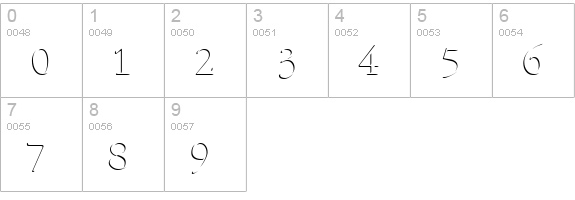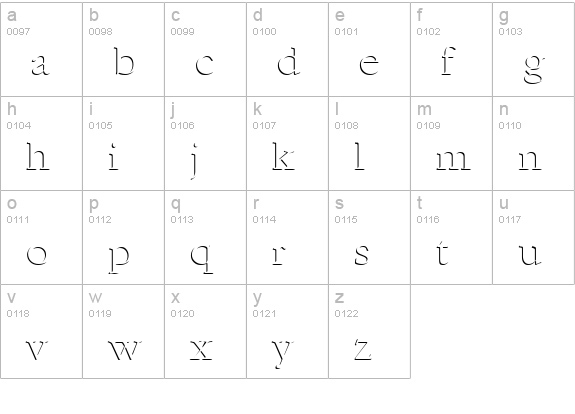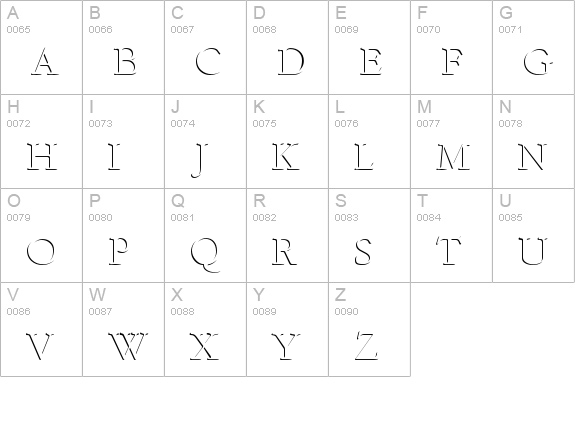
ReliefSerif Regular Font Details
ReliefSerif Regular is the standard, neutral variant in the ReliefSerif typeface family \xE2\x80\x94 well suited to general body text, paragraphs, and standard typographic work.
ReliefSerif Regular is an exquisite font that effortlessly combines elegance with readability. Its timeless serifs and clean lines create a harmonious balance, making it perfect for both professional and creative projects. Whether you're designing a logo, crafting a stunning invitation, or creating a captivating magazine spread, ReliefSerif Regular will add a touch of sophistication and class. This font is designed with the utmost attention to detail, ensuring every character is meticulously crafted to perfection. The delicate curves and intricate letterforms make each word a work of art. The versatility of ReliefSerif Regular allows it to seamlessly adapt to various design styles, from modern and sleek to classic and traditional. What sets ReliefSerif Regular apart is not just its exceptional aesthetics, but also its availability. It is freely available to download at FontsMarket.com. This means that you can easily access and use this remarkable font without any hassle. Whether you're a professional designer or an aspiring creative, ReliefSerif Regular offers you the opportunity to elevate your designs without breaking the bank. With ReliefSerif Regular, you can effortlessly communicate your message with clarity and style. Its legibility ensures that your content is easily readable, while its elegant design adds a touch of sophistication to your work. Whether used for headlines, body text, or captions, ReliefSerif Regular will captivate your audience and leave a lasting impression. So why wait? Download ReliefSerif Regular today from FontsMarket.com and unlock the potential of this exceptional font. With its timeless appeal and availability, ReliefSerif Regular is the perfect choice for any design project, enabling you to create truly remarkable and memorable designs.